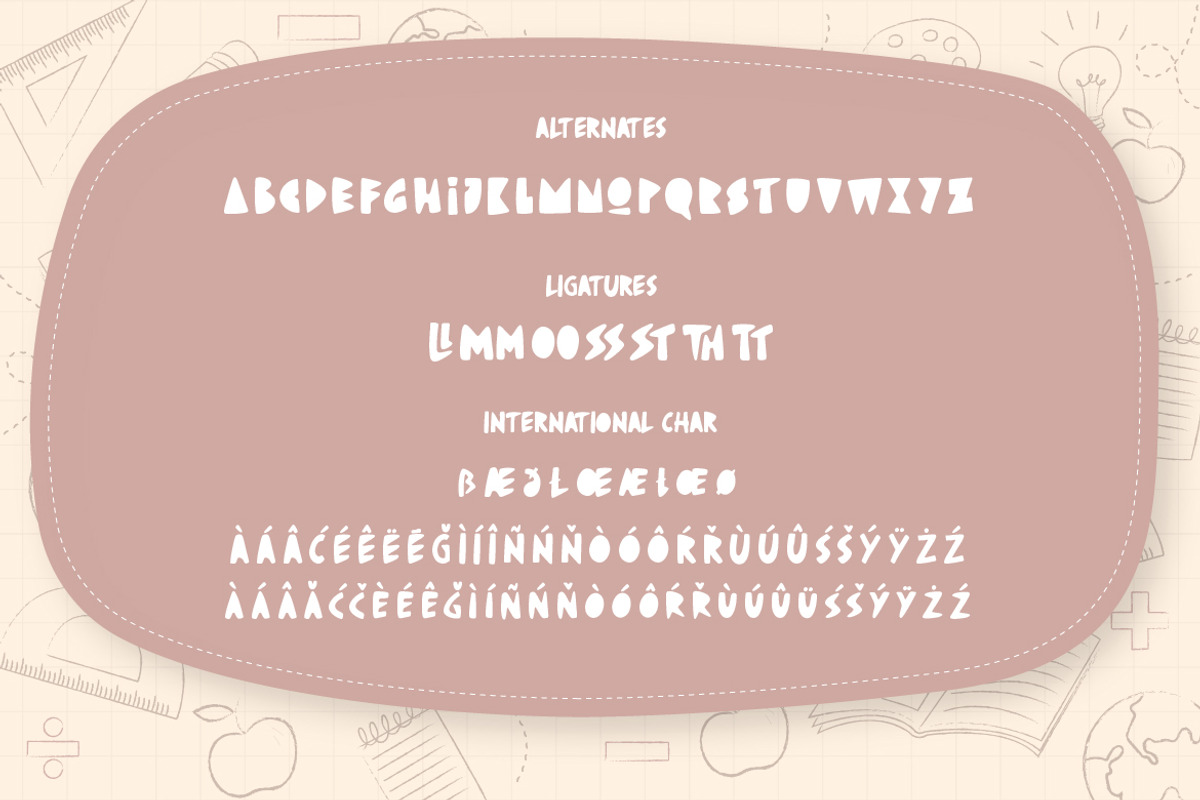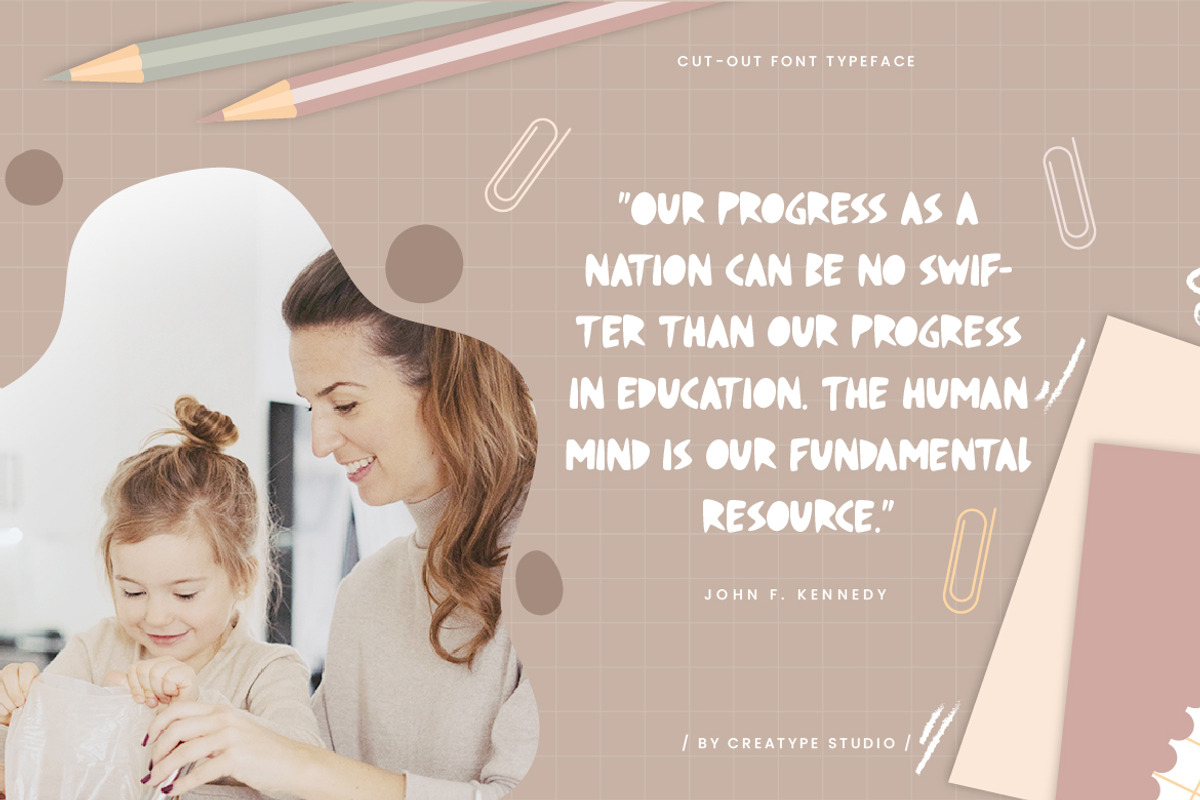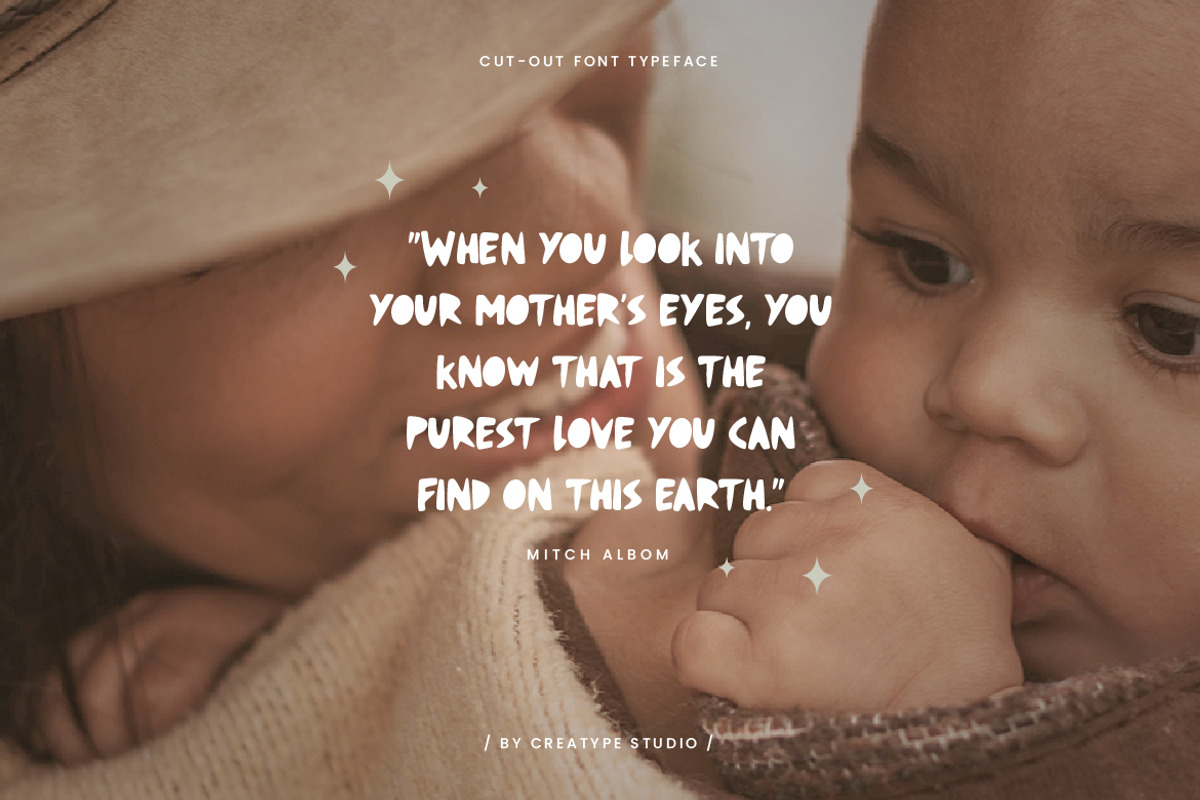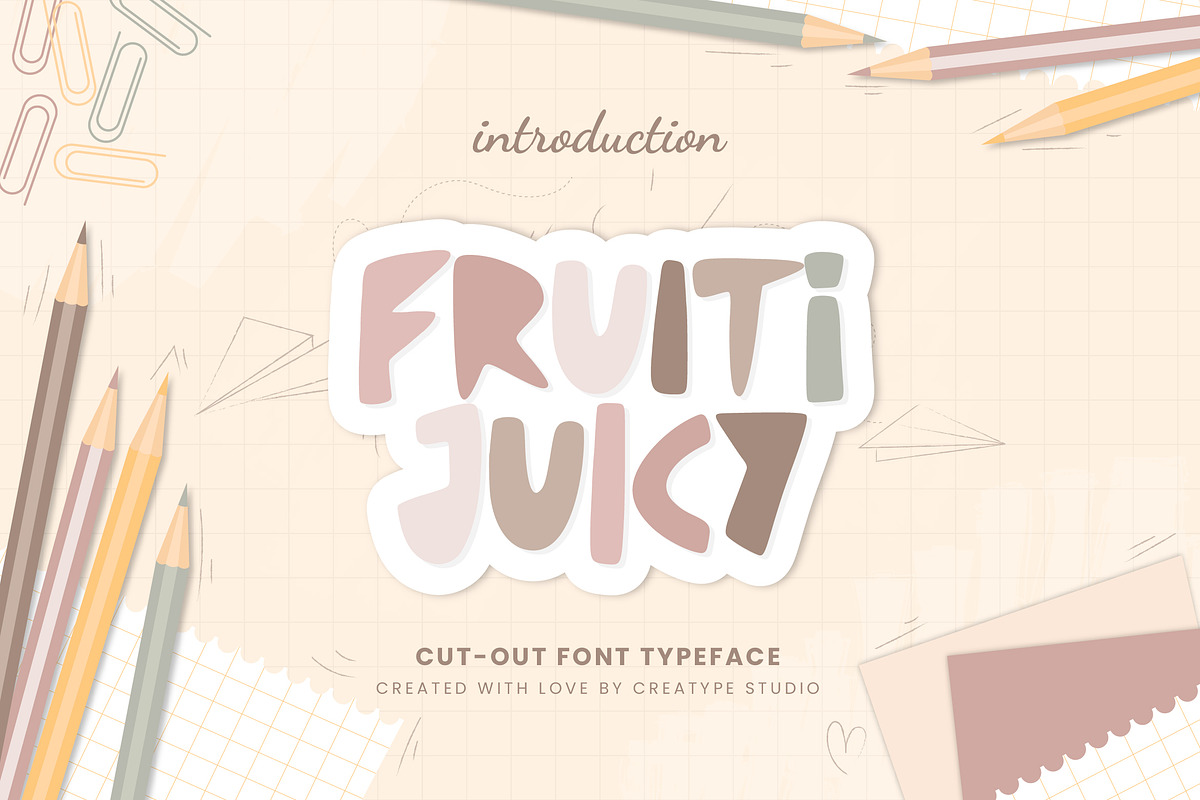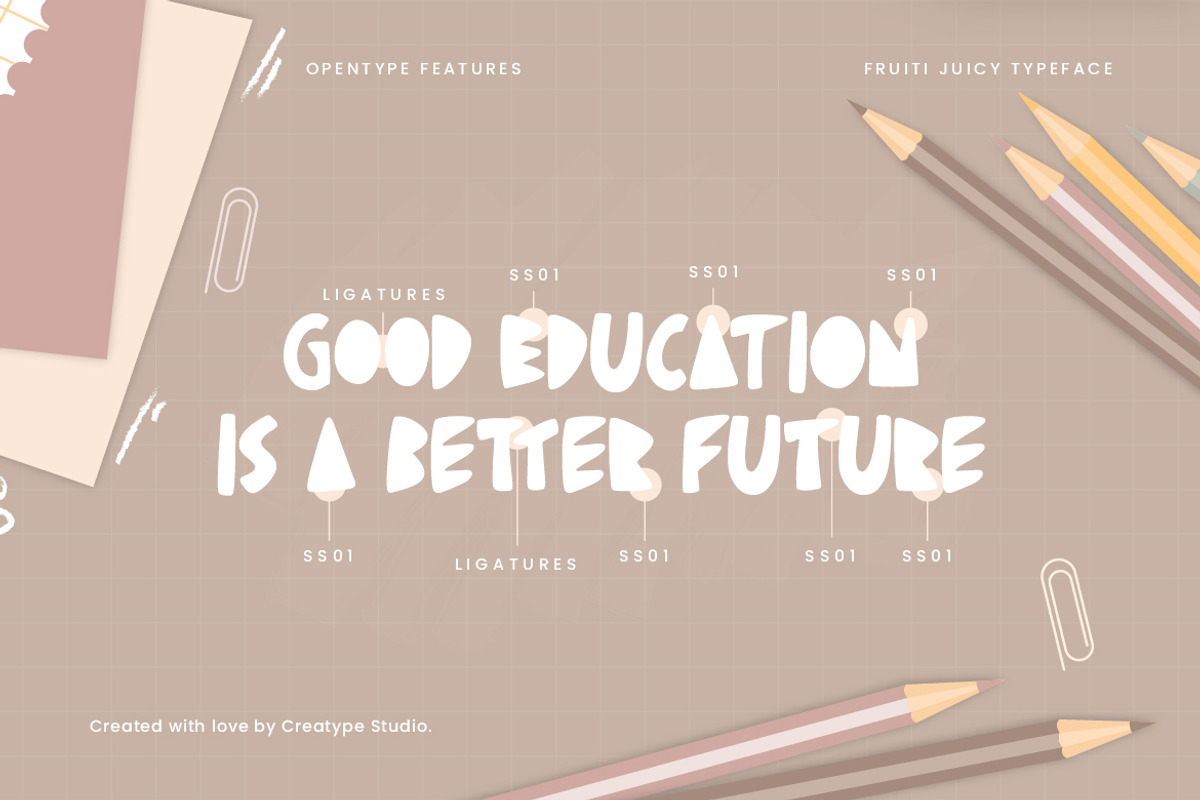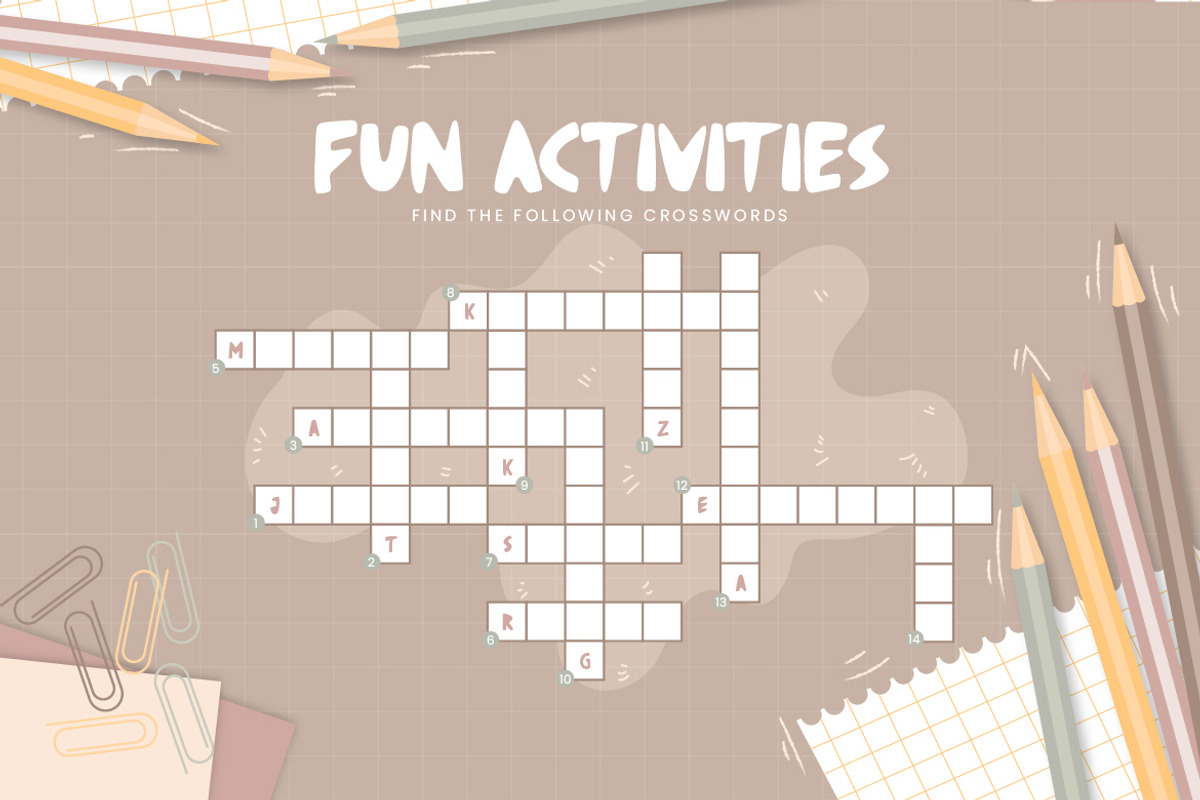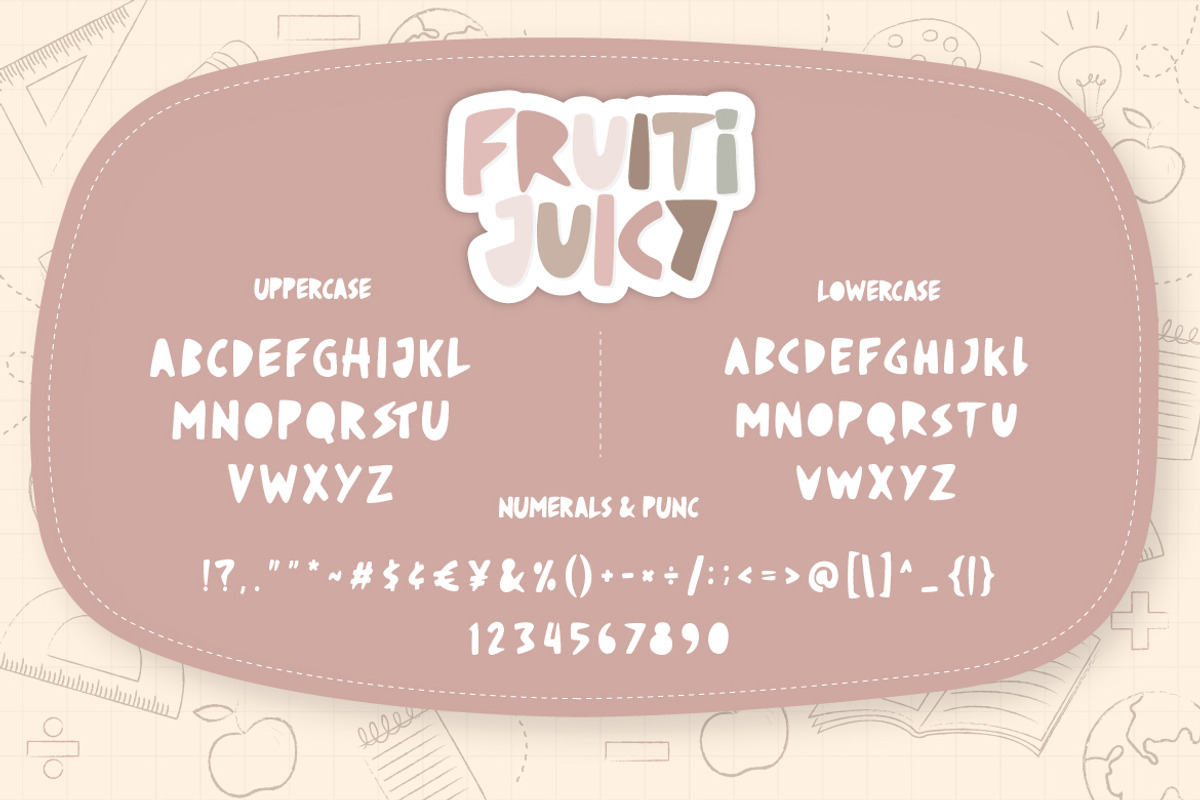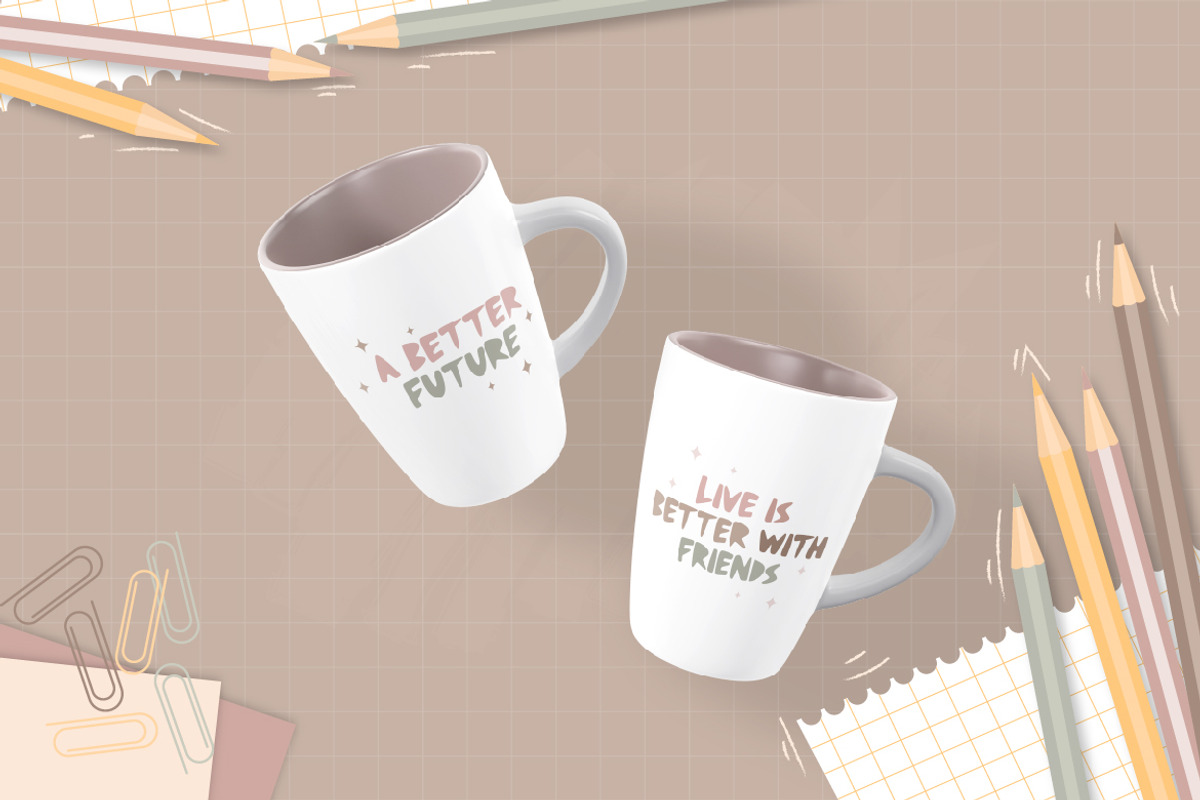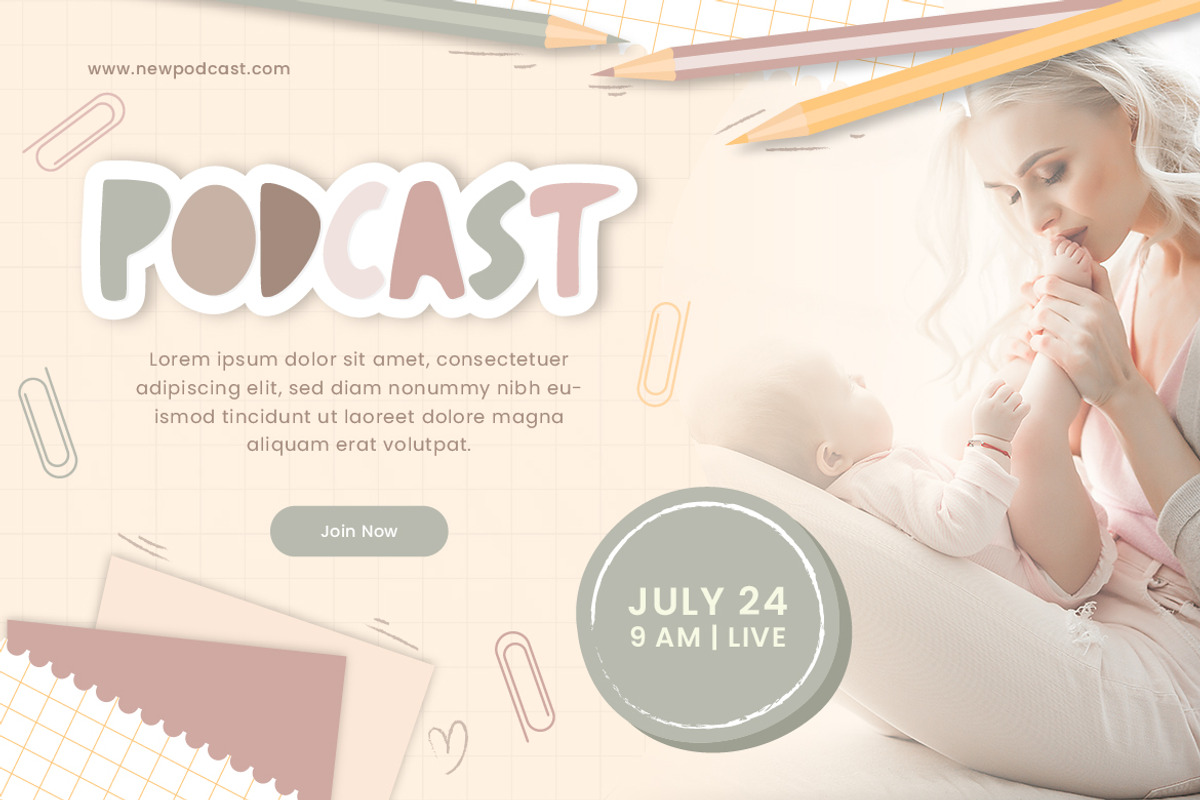
Fruiti Juicy Cut-Out Typeface
Fruiti Juicy is a handwritten cutout typeface. You can use this font for cute, happy, and cheerful projects. This font will make your project look more natural and beautiful.
Fruiti Juicy is perfect for branding projects, logo, wedding designs, social media posts, advertisements, product packaging, product designs, label, photography, watermark, invitation, stationery and any projects that need handwriting taste.
- Ligature & Alternate